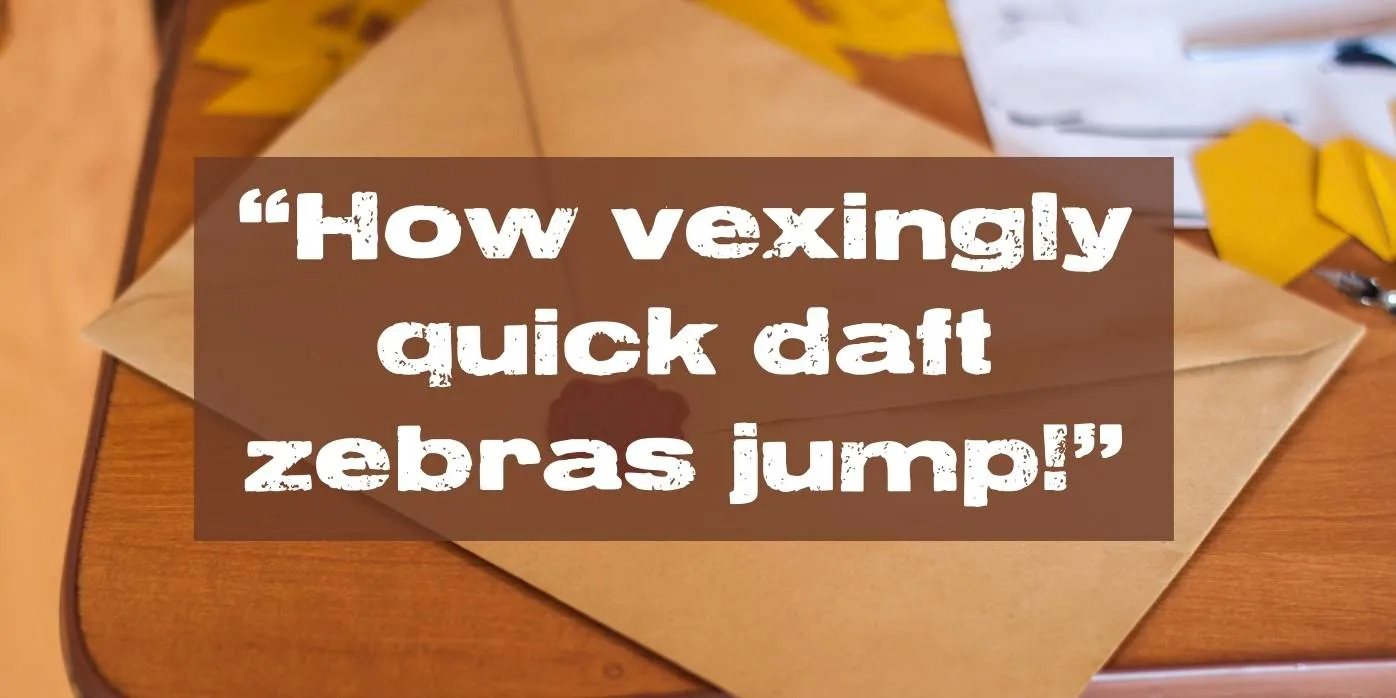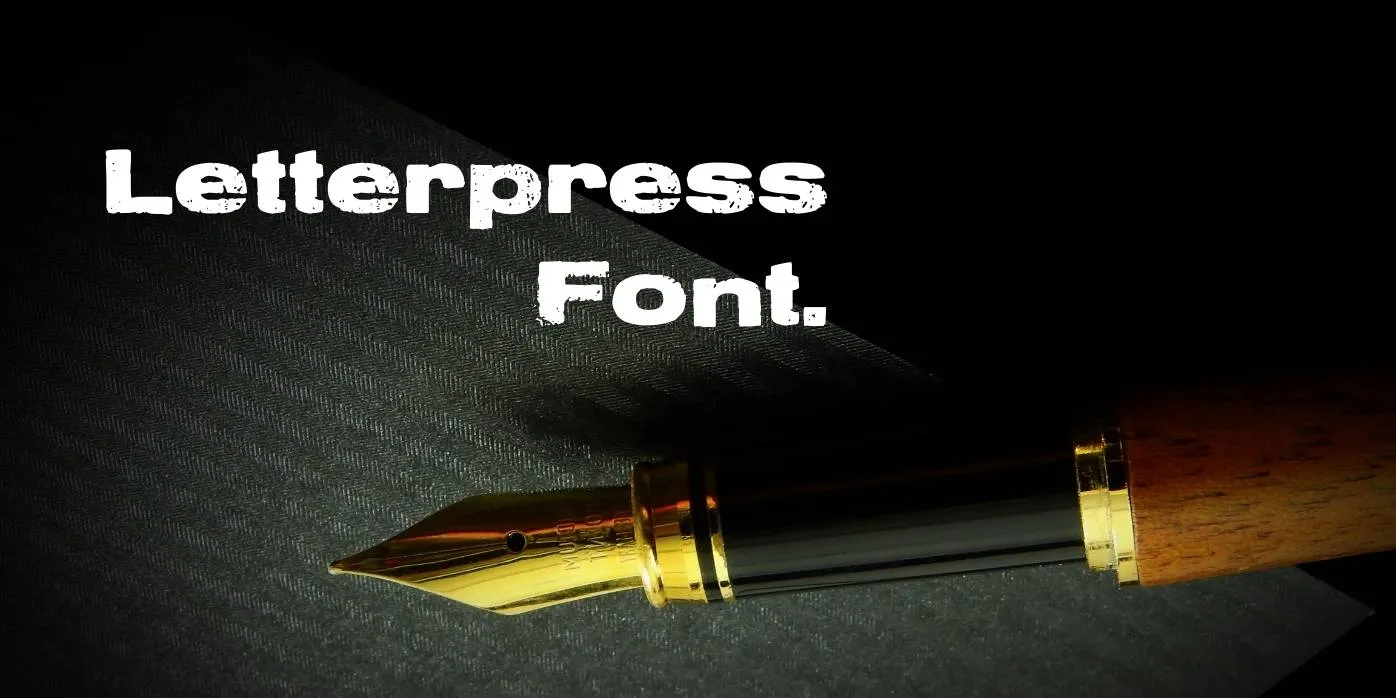
Letterpress Font
Today we present a marvelous and stunning typeface that was famous with the name Letterpress Font. This amazing font belongs to the display typeface. This fascinating font family was manufactured by the most popular Marcus Sterz FaceType. In the year 2003, this attractive font family was released.
This neat and clean font family comes in a greater quantity of unique Glyphs almost 292. This classy typeface is available with 200 famous and interesting characters that make your designs more effective and classic. Also, this astonishing font has very amazing styles. Some of its commonly used styles are  Headline, Phosphor, Symbols, and others.